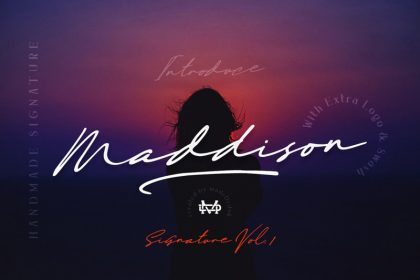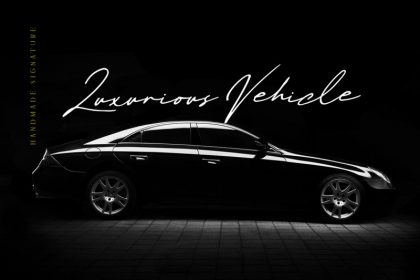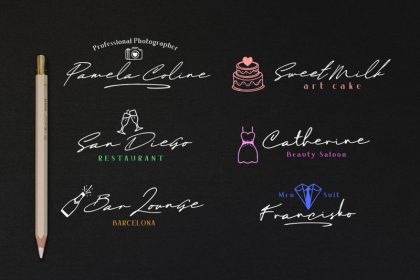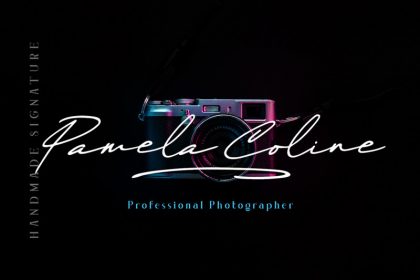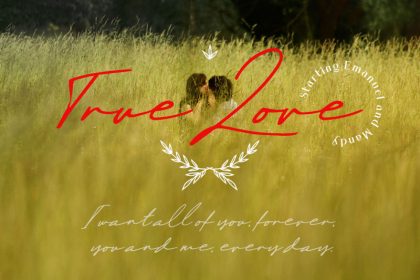
Maddison Signature Font
Introducing Maddison is gorgeous handmade signature font. Maddison signature includes more than 170 ligatures to make everything look natural handmade signature.This font perfect for poster design, book covers, merchandise, fashion campaigns, newsletters, branding, advertising, magazines, greeting cards, album covers, and quote designs and more.